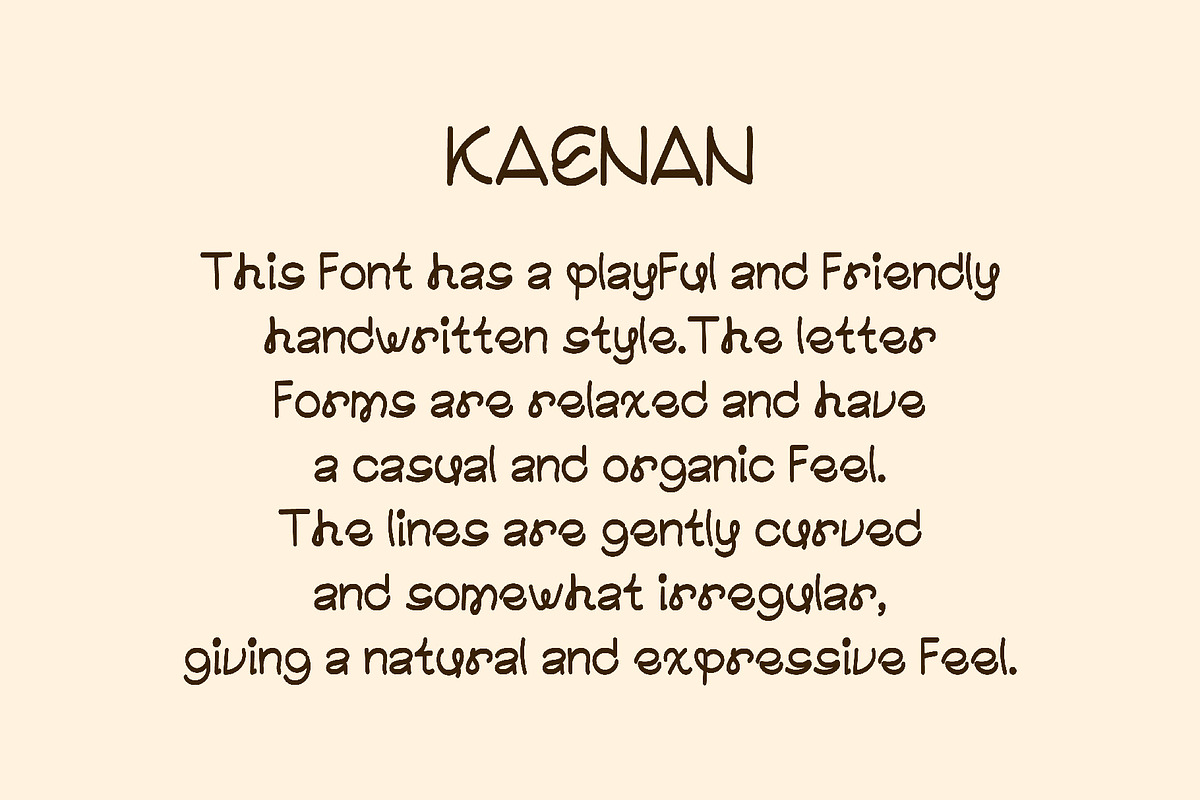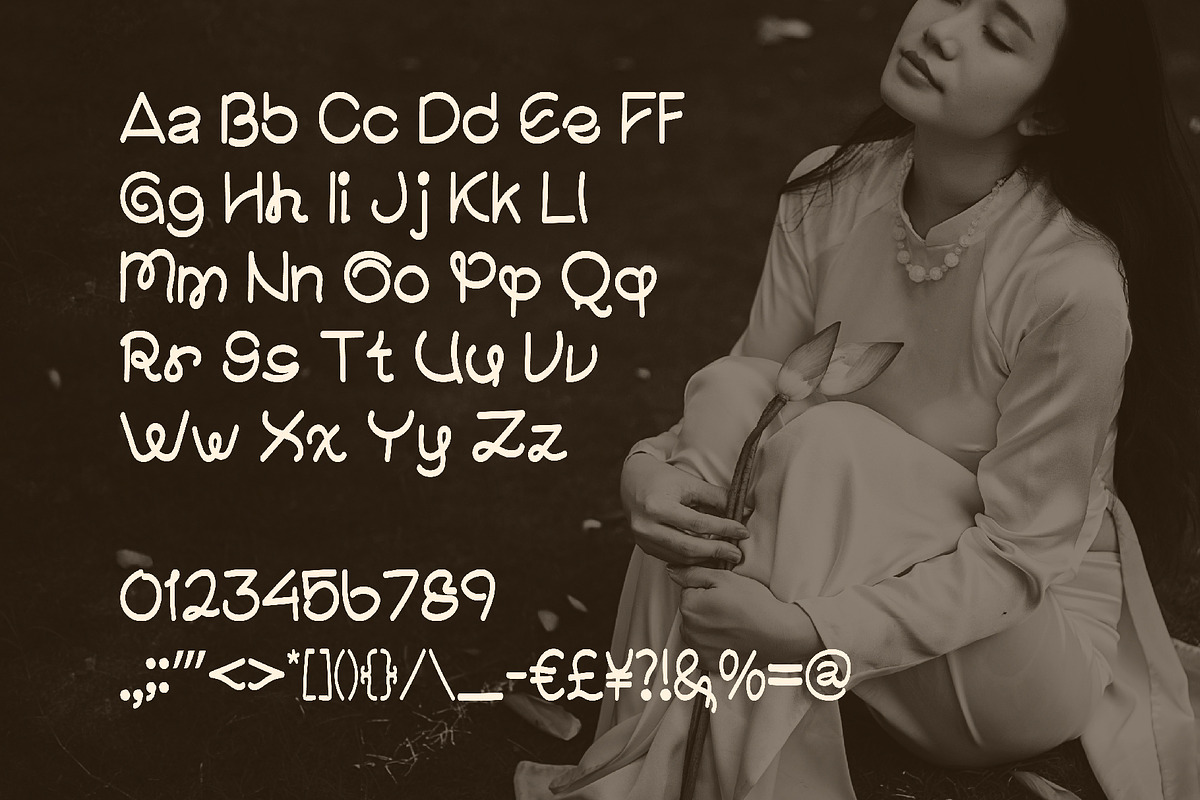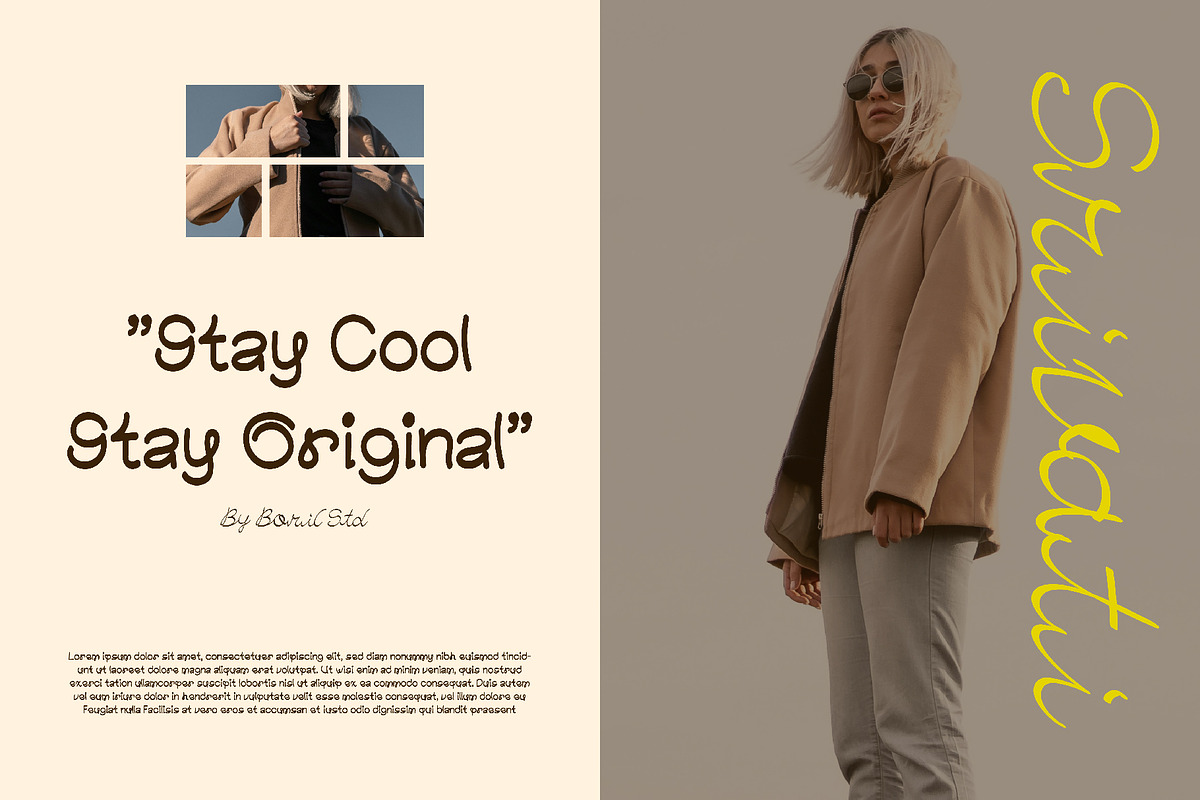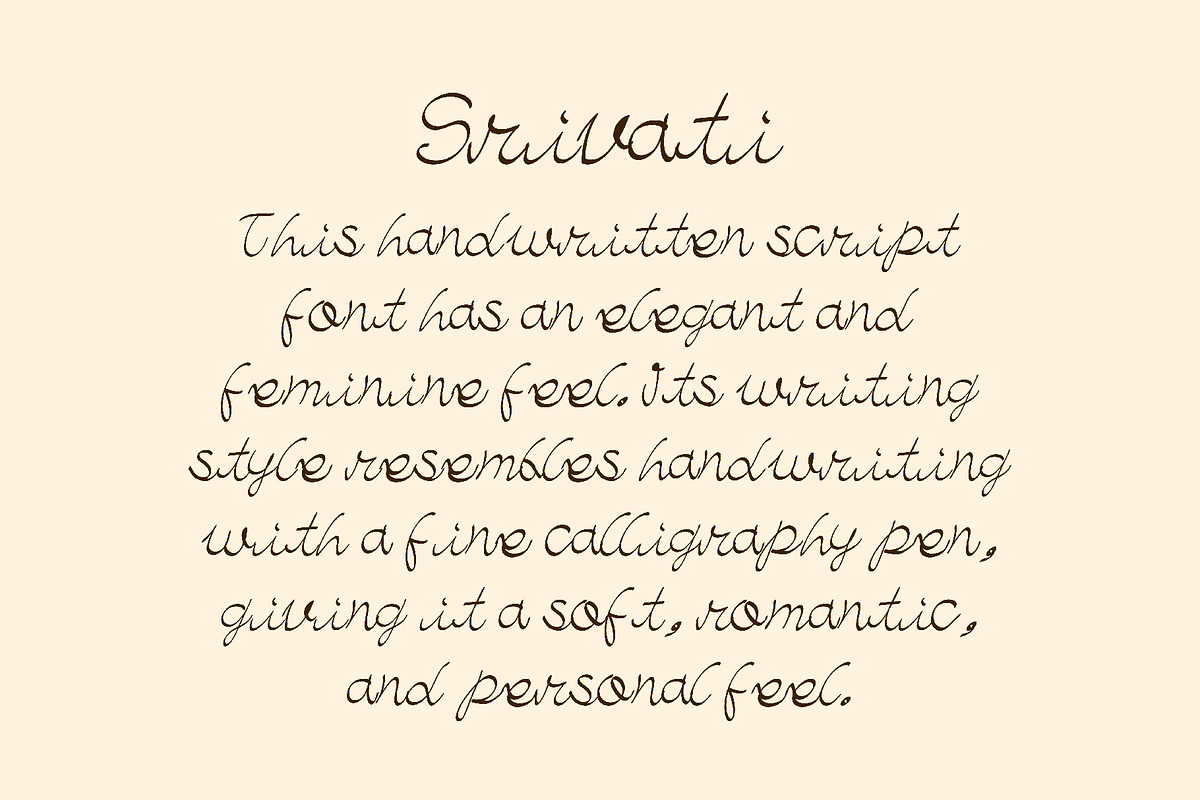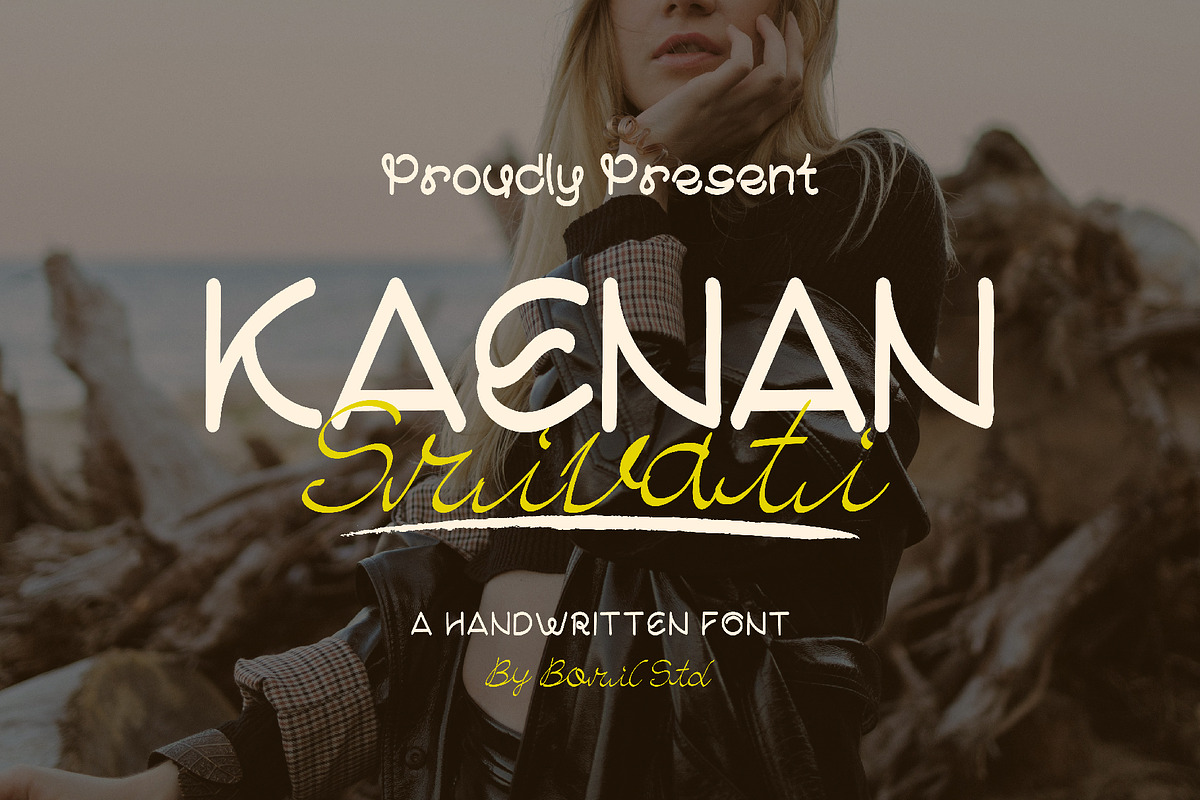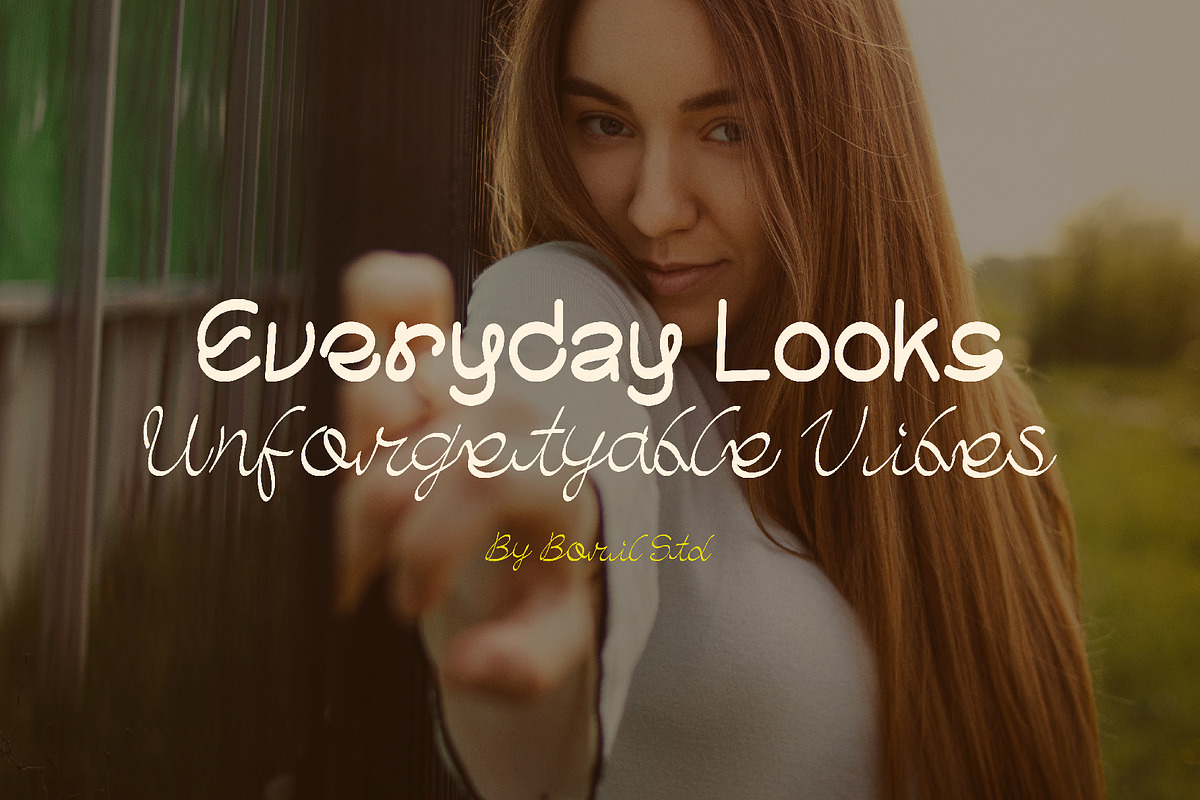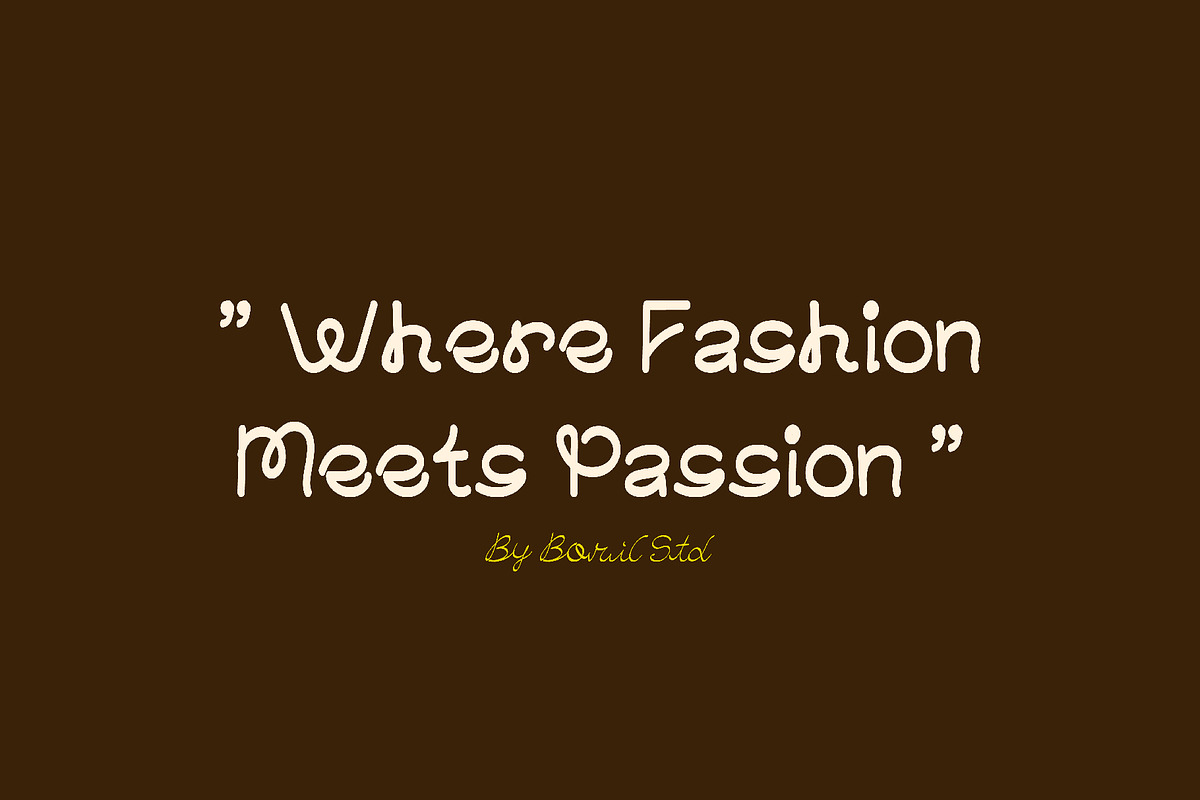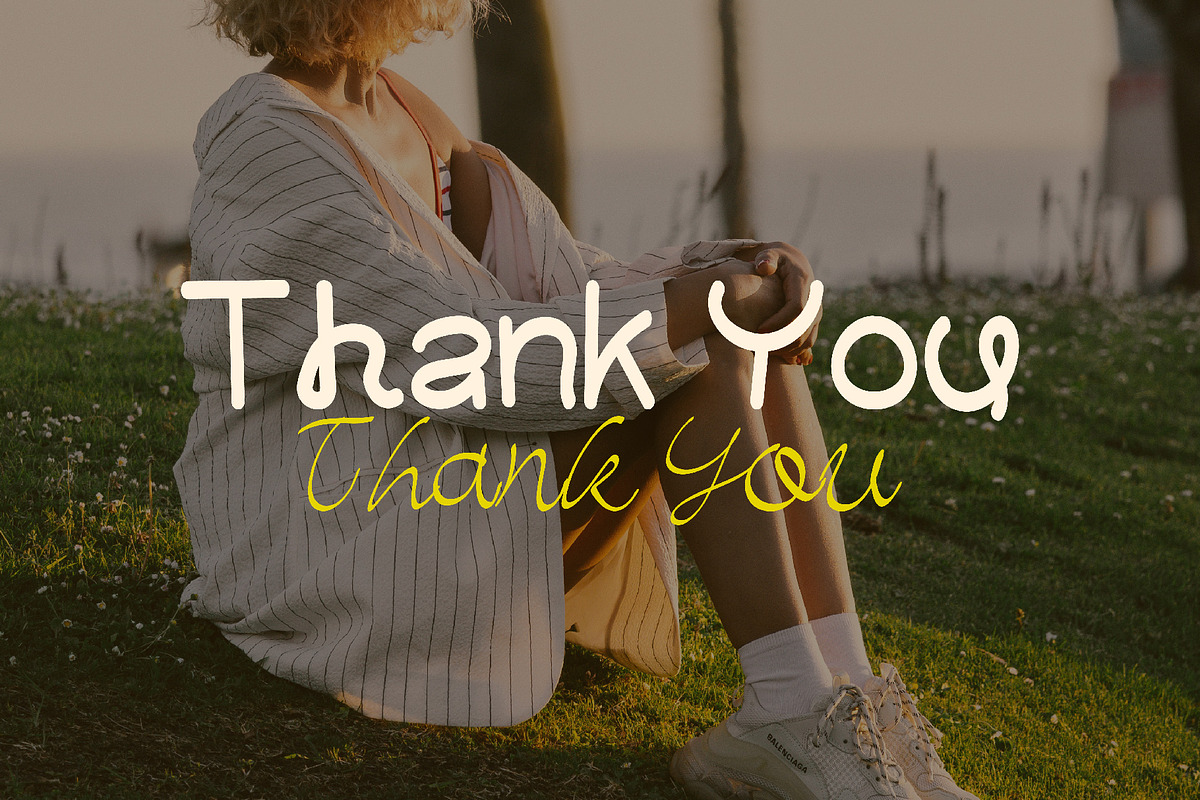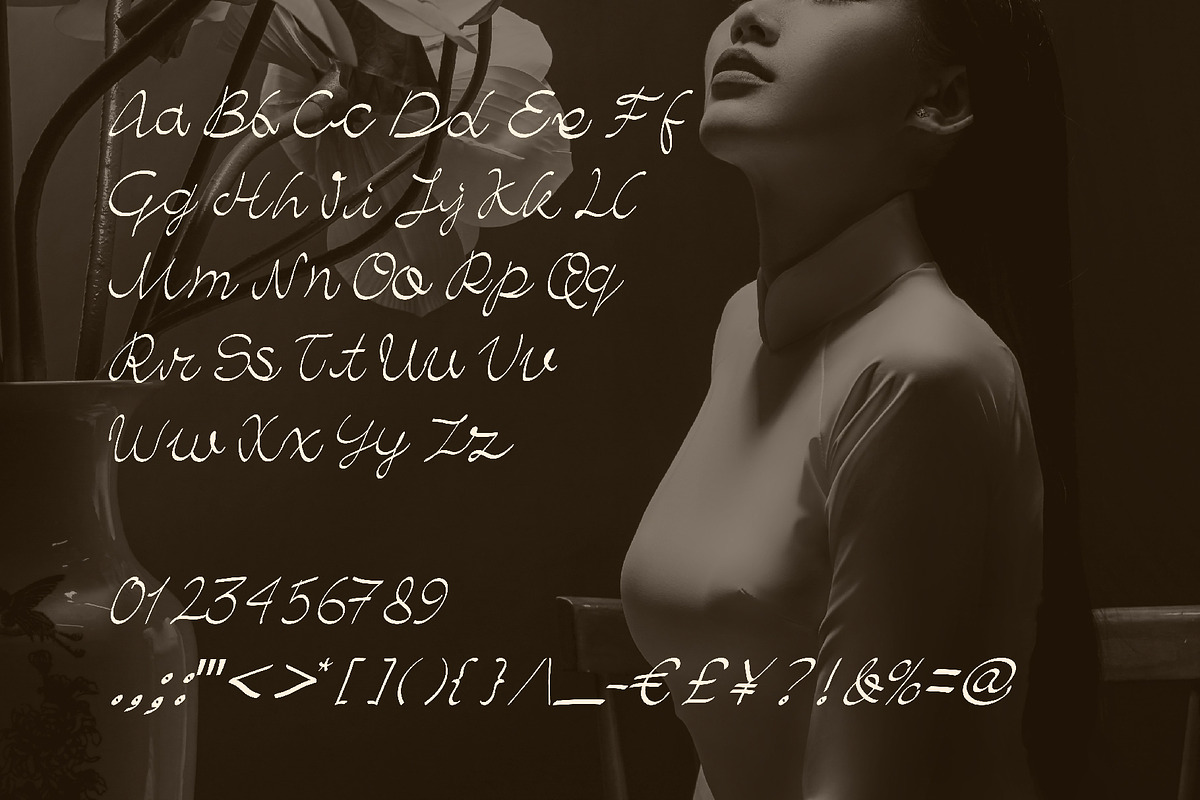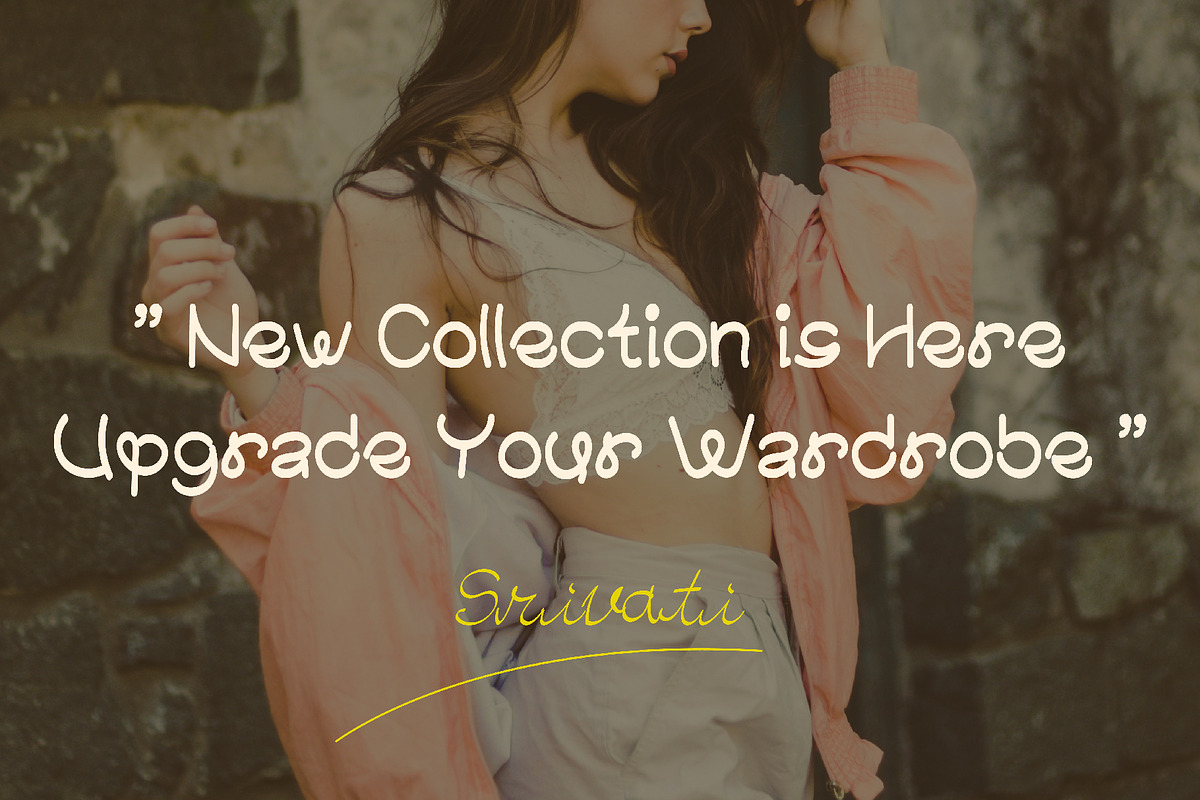
Kaenan Srivati - Handwritten Duo
The Kaenan font has a cheerful and friendly handwriting style. The letterforms are relaxed and give a casual and organic feel. The lines are gently curved and slightly irregular, giving a natural and expressive feel.
The Srivati font has an elegant and feminine feel. Its writing style resembles handwriting with a fine calligraphy pen, giving it a soft, romantic, and personal feel.